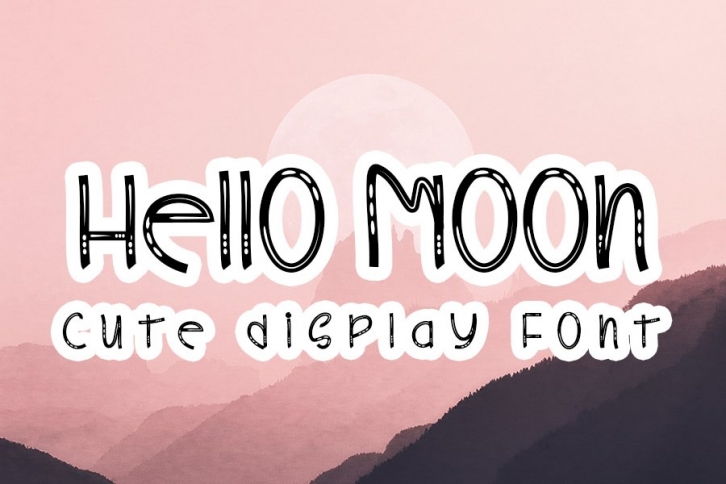
Hello Moon is a beautiful font that was designed by InermediaSTUDIO. It's a great choice for designers and creatives who need such a font. It was released on October 7, 2020 and the file size is 10.11 MB. Hello Moon may give a more youthful, expressive and casual look to your project. It is a very beautiful, refined, elegant, and high-quality font.